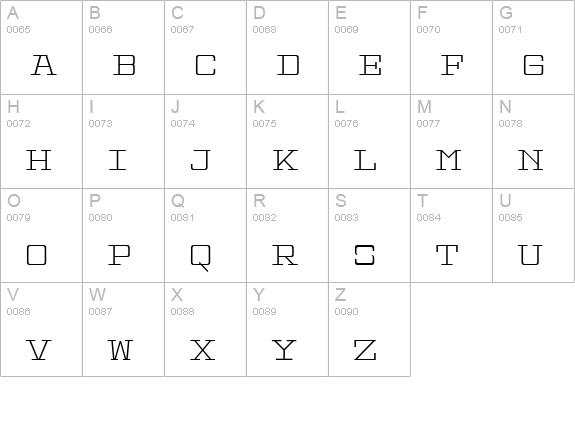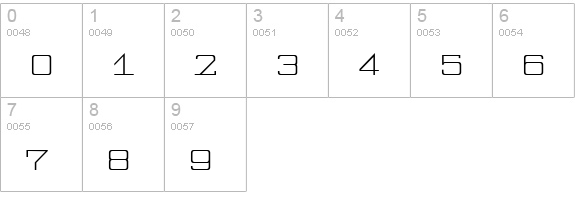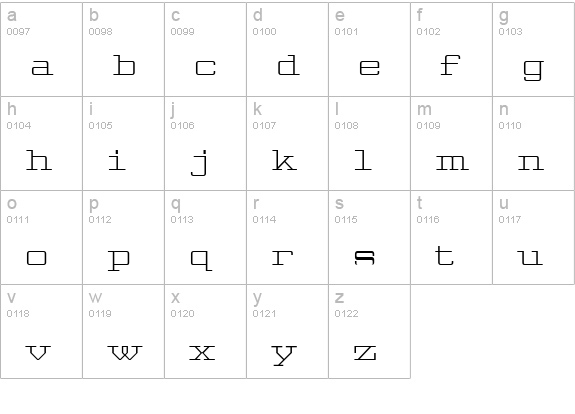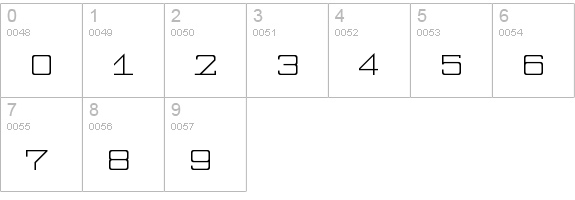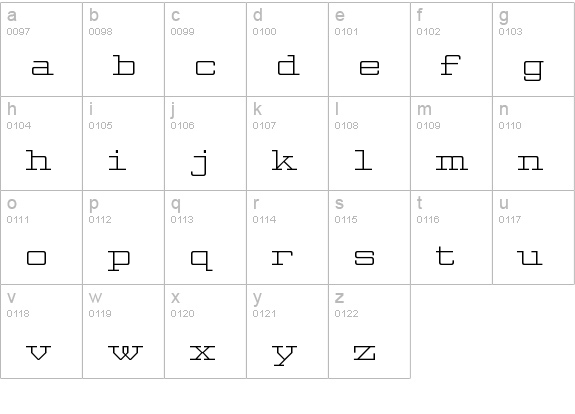
Valgal Font Details
Valgal font is a stunning display font that will captivate your audience with its unique and elegant design. Its clean lines and delicate curves give it a sophisticated and modern look, making it perfect for a wide range of creative projects. This font is not only aesthetically pleasing but also highly versatile. Whether you're designing a logo, creating a headline, or crafting a poster, Valgal font will effortlessly elevate your design and make it stand out from the crowd. One of the best things about Valgal font is that it is absolutely free. Yes, you read that right! This incredible font is freely available to download at FontsMarket.com. You can easily access this font and start using it in your projects without having to worry about any licensing fees or restrictions. The creators of Valgal font have put in a tremendous amount of effort to ensure that it is not only visually appealing but also user-friendly. With its well-crafted characters and excellent legibility, this font is a joy to work with. It is suitable for both print and digital media, and its versatility makes it suitable for various design styles. So why wait? Download Valgal font today from FontsMarket.com and add a touch of elegance to your designs. Whether you're a graphic designer, a web developer, or an aspiring artist, this font will undoubtedly become an essential part of your creative toolkit. Don't miss out on this incredible opportunity to enhance your designs with a high-quality, freely available font.